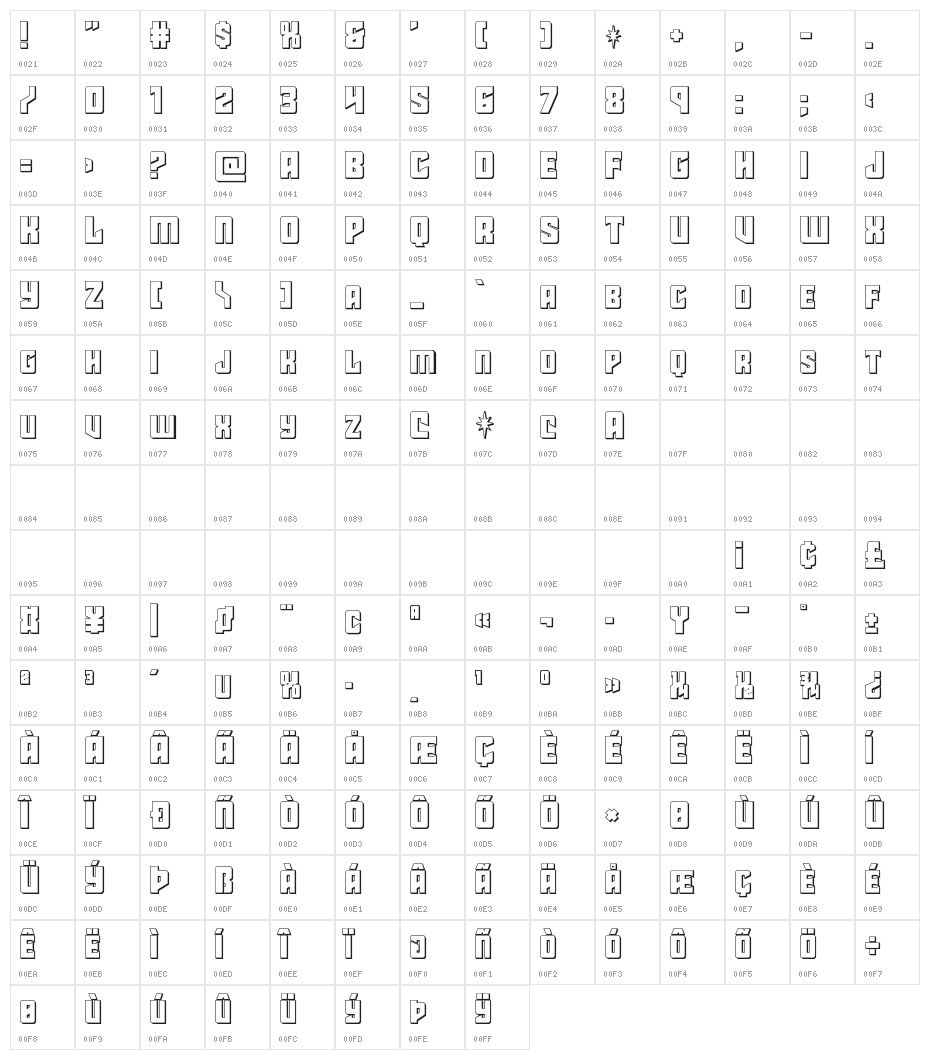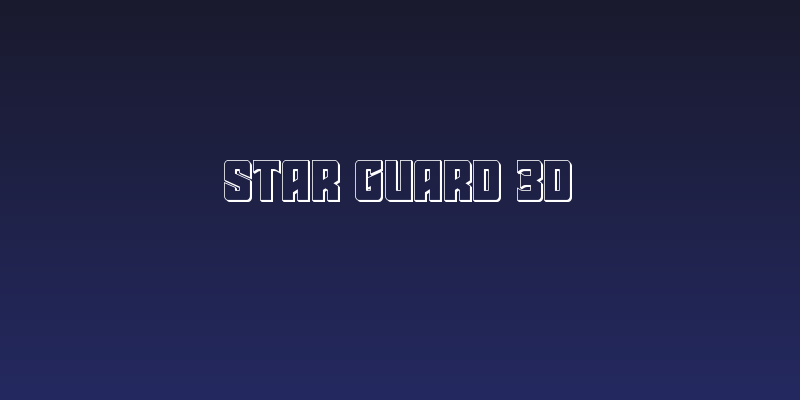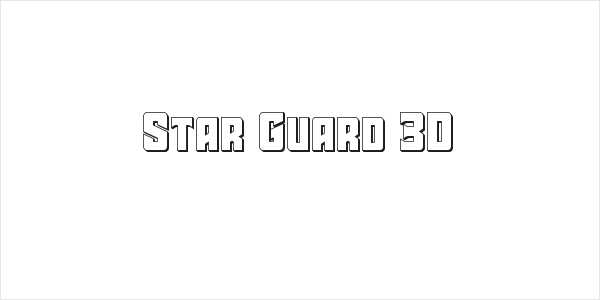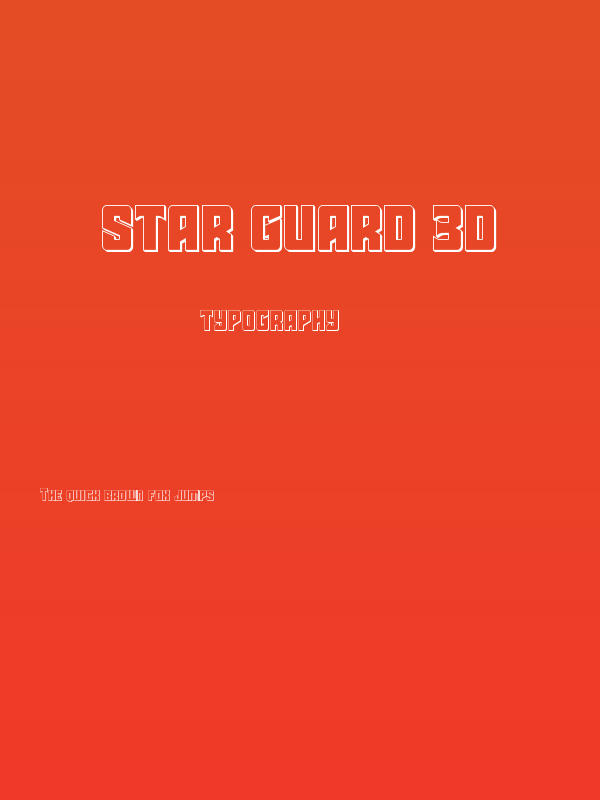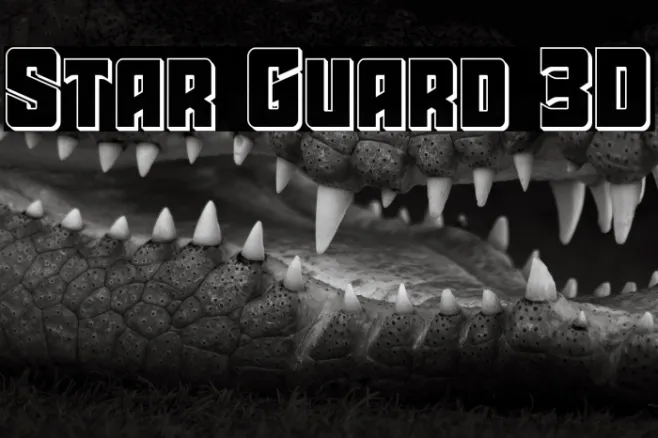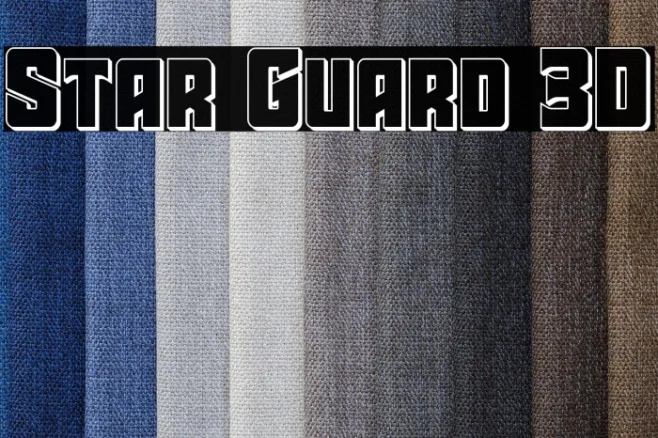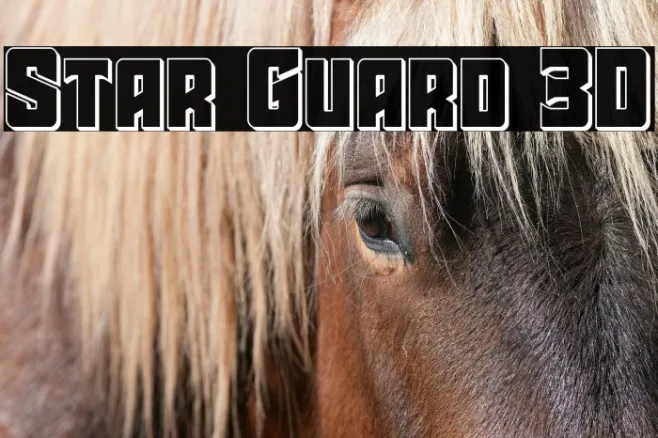
Star Guard 3D Font
Star Guard 3D Description
This font features a bold, three-dimensional design with a futuristic and geometric aesthetic. Each character is outlined, creating a striking visual effect that emphasizes depth and dimension. The uppercase letters are blocky and angular, with sharp edges and a uniform height, contributing to a cohesive and structured appearance. The numerals and special characters maintain this style, ensuring consistency across all glyphs. The font's unique 3D effect makes it stand out, ideal for projects that require a modern and eye-catching typeface.